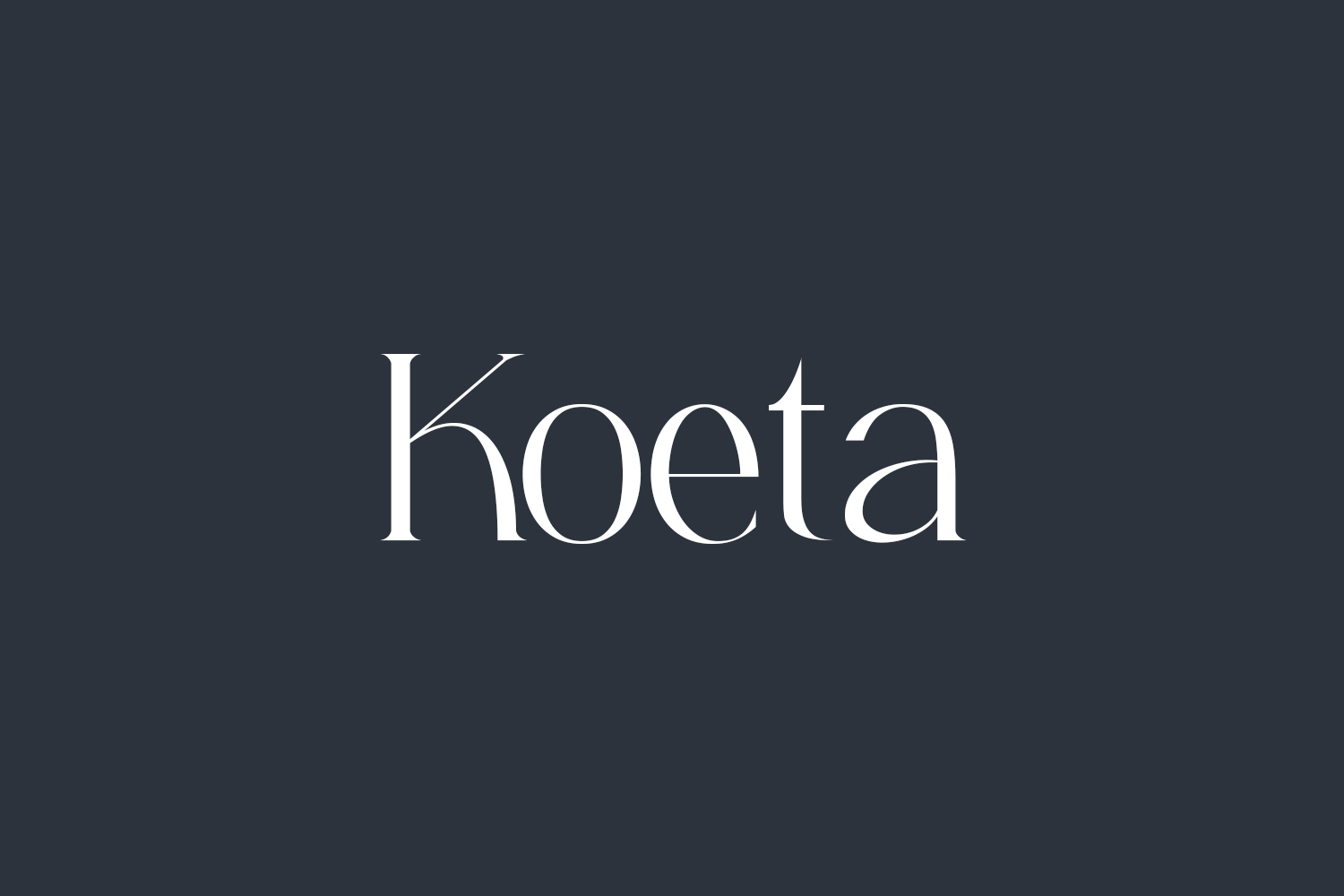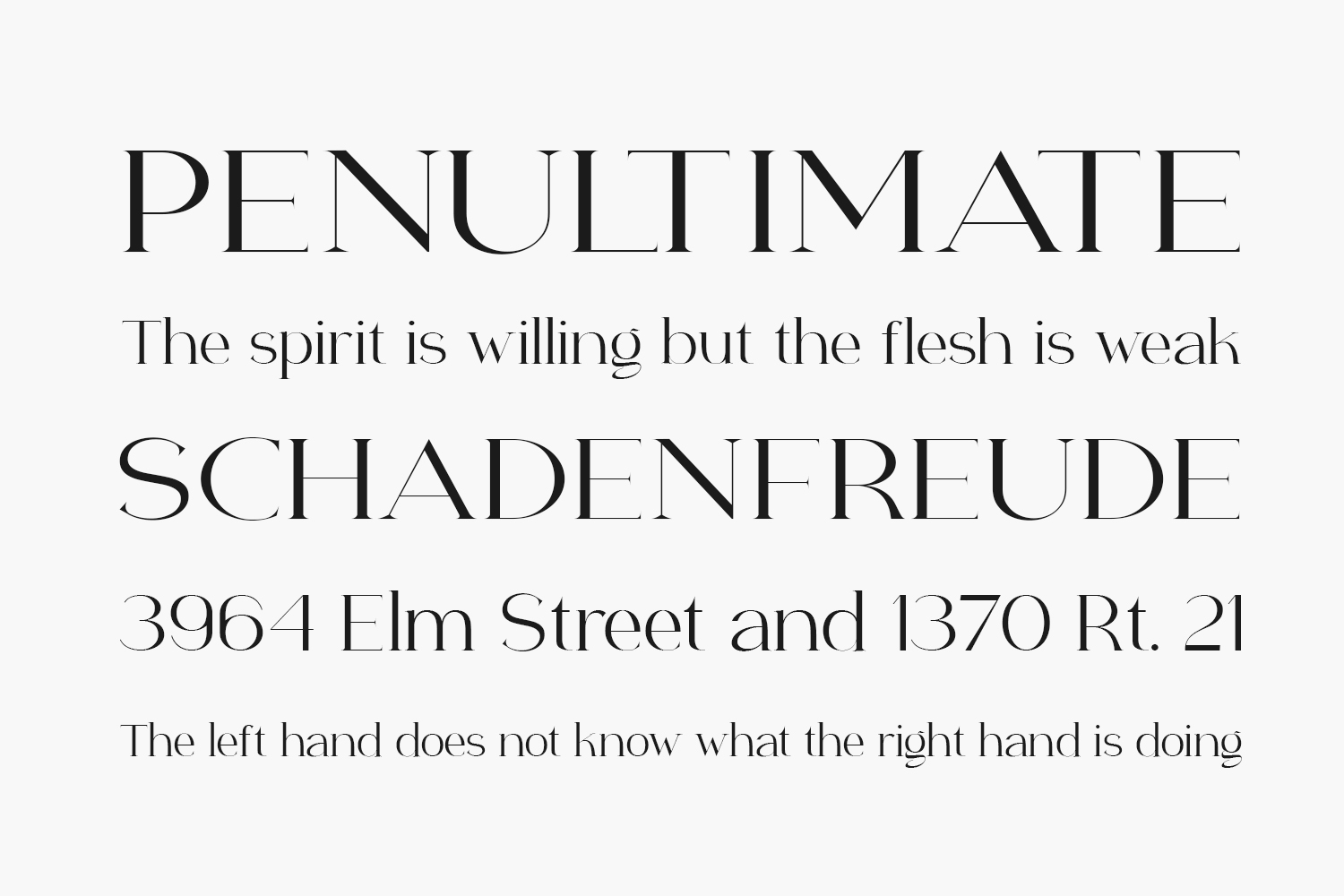
Koeta Free Font is a classic and timeless typeface that exudes elegance and refinement. Its clean, crisp lines and elegant serifs give it a sophisticated and distinguished appearance, making it a perfect choice for creating elegant and professional-looking designs. Whether you’re working on a formal document or a high-end brand, the Koeta serif font will add a touch of class and sophistication to any project. With its versatile and timeless design, it’s suitable for both traditional and modern designs, making it a great font for any project.